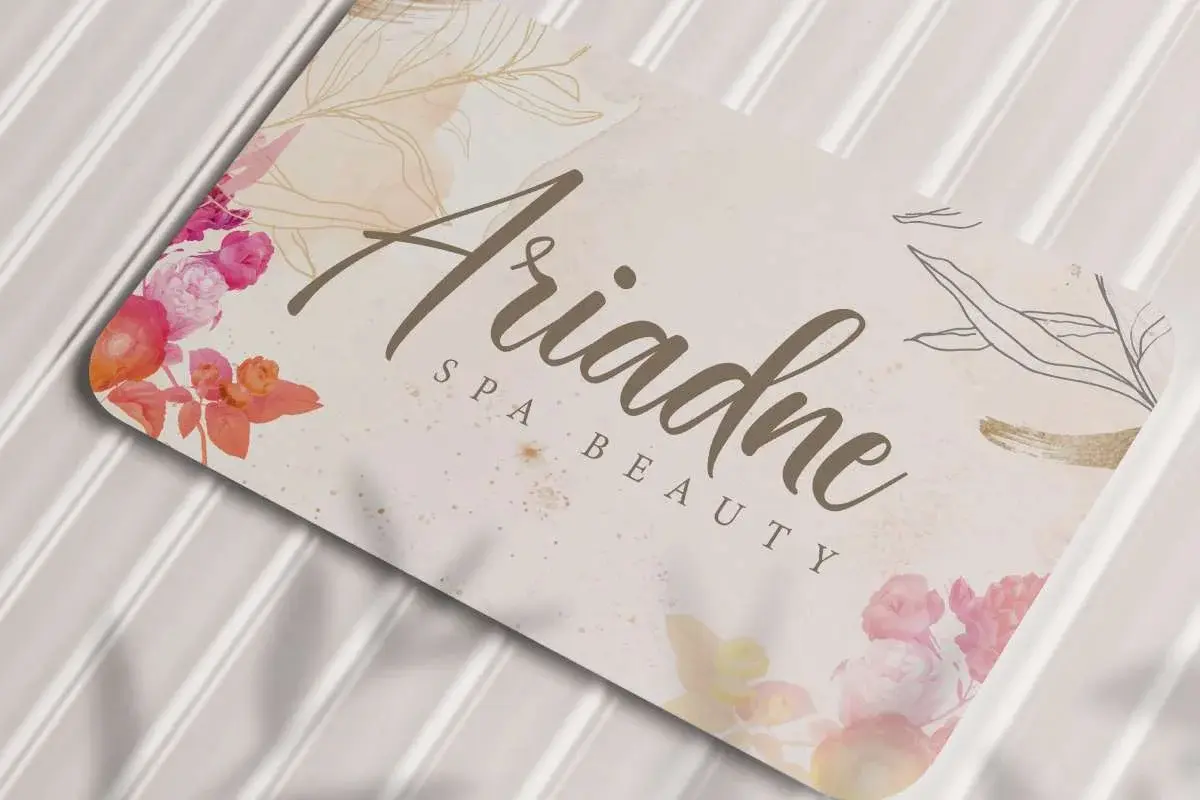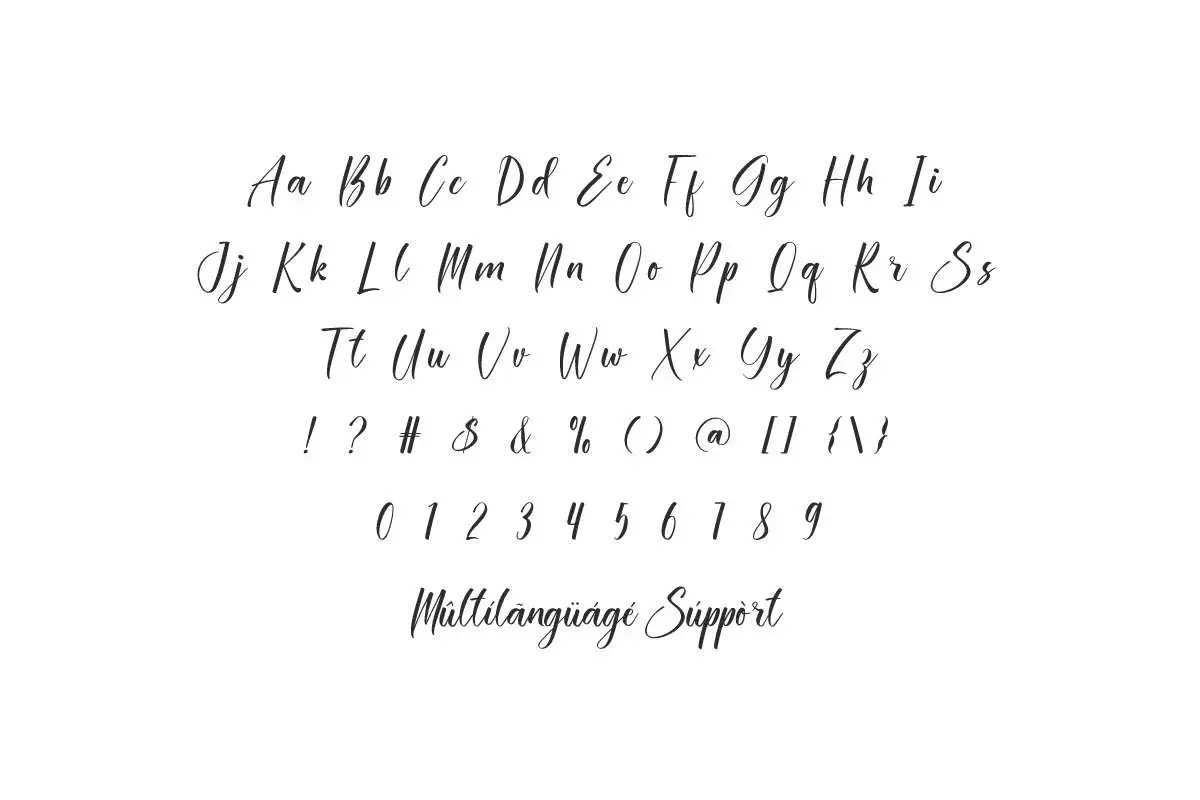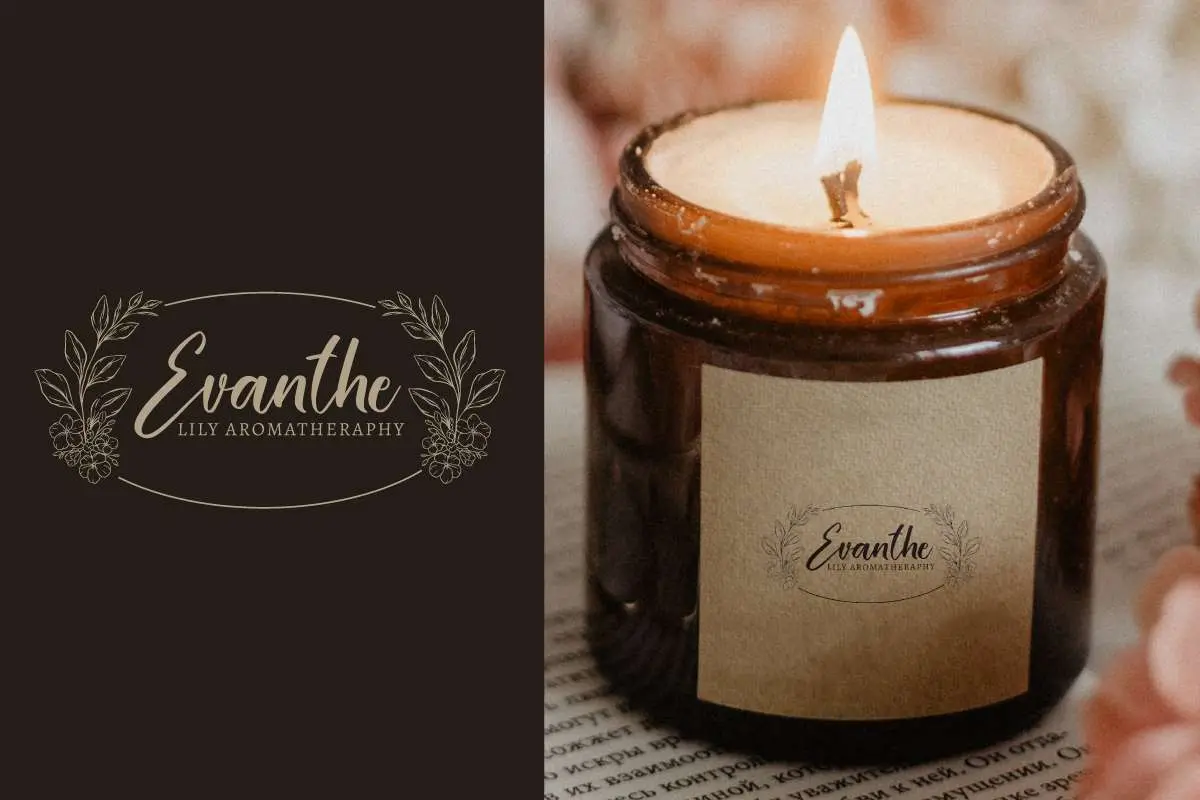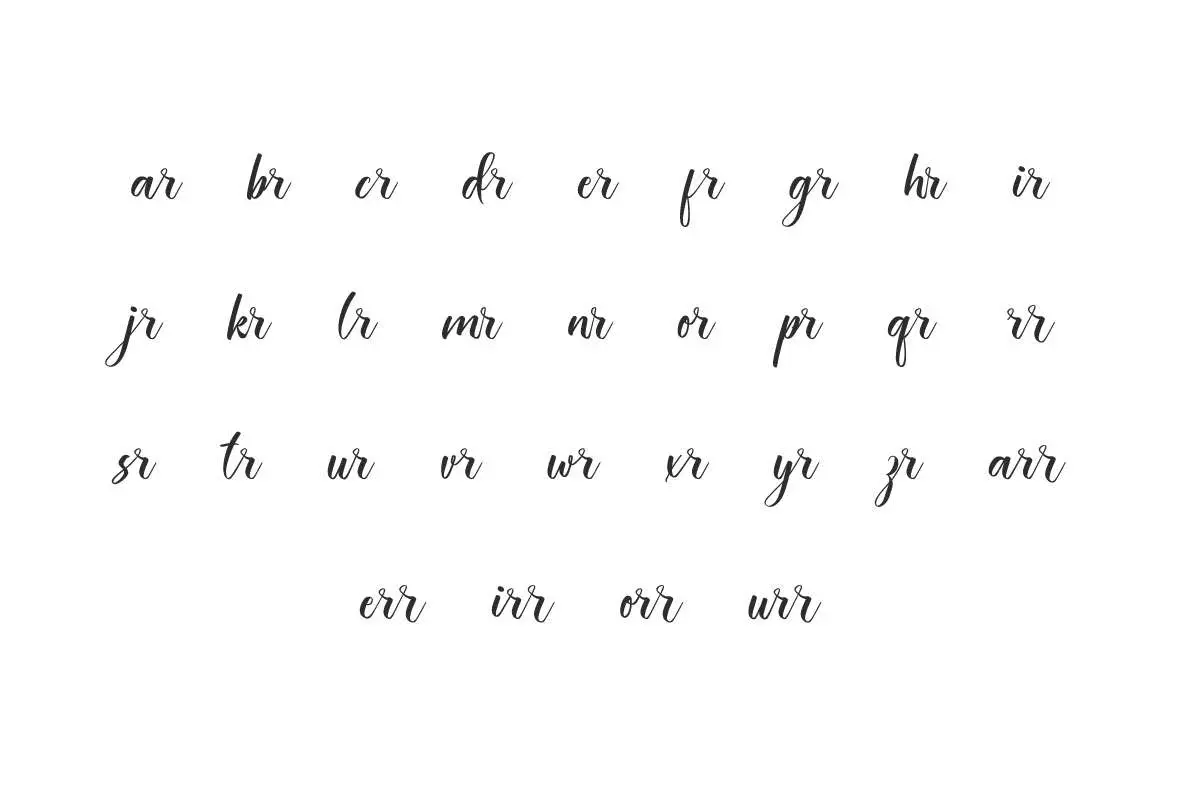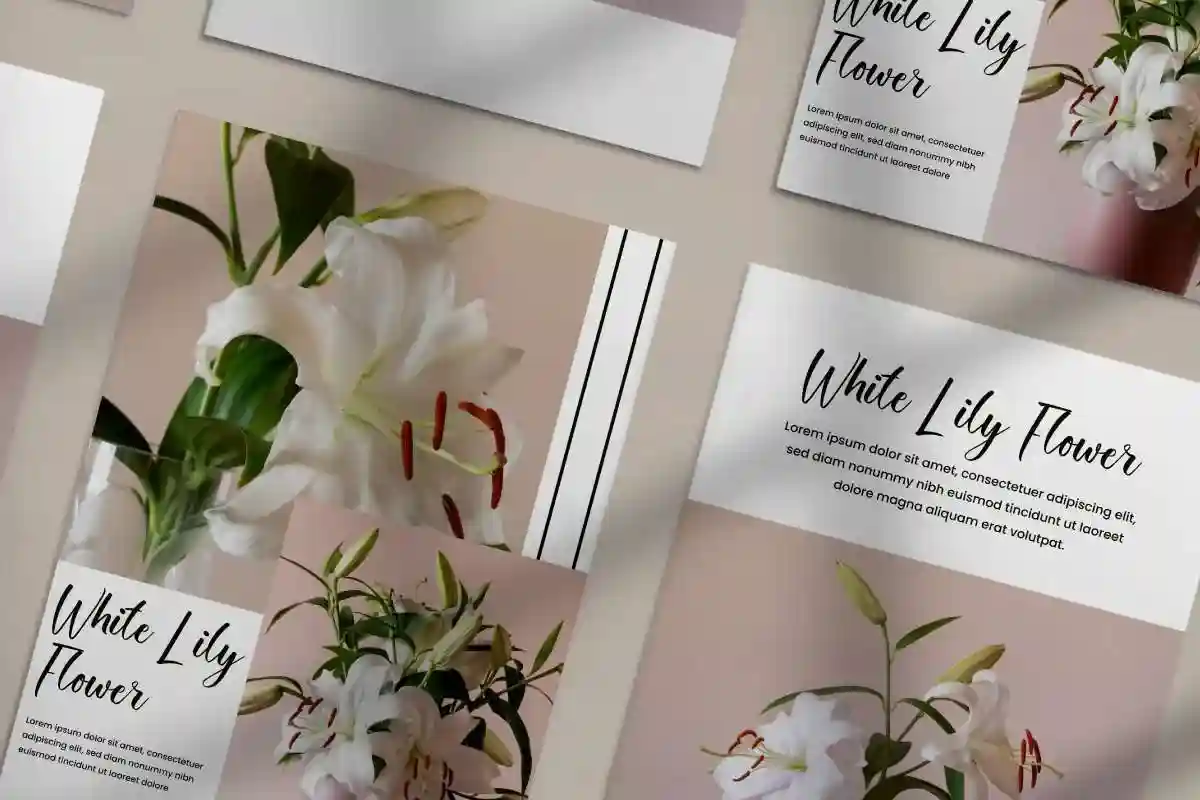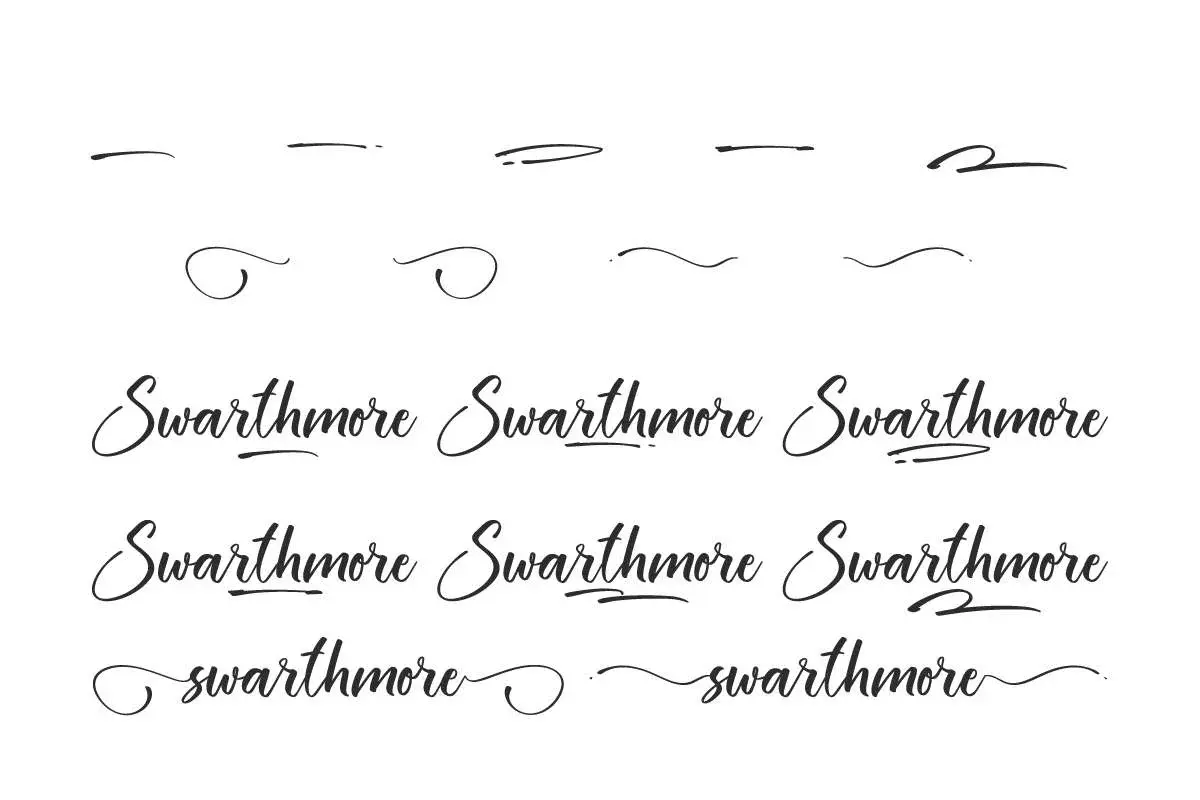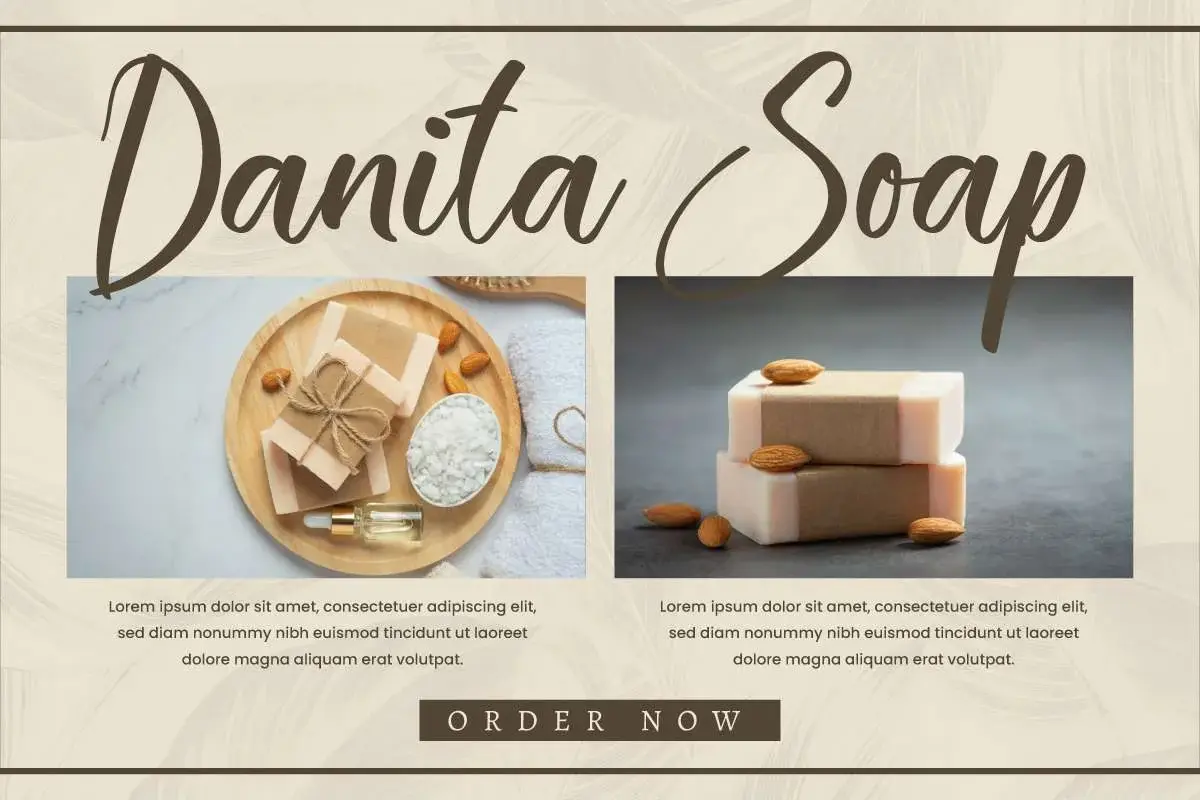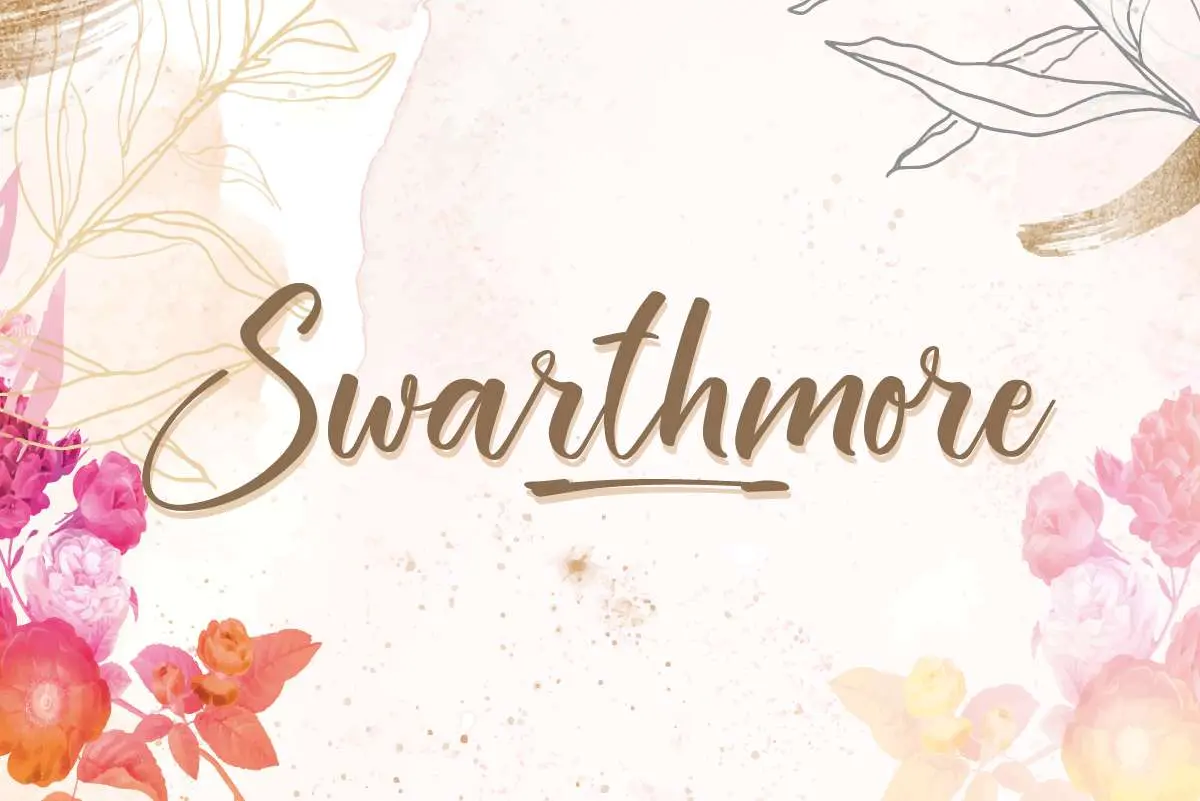
Swarthmore Font is a gorgeous calligraphic script with a timeless look that will be great for florist, weddings, spa, artist, magazine, product label, website, etc
Swarthmore Font is a gorgeous calligraphic script font with impeccable charm created by NihStudio. This typography was created with great care, having a perfect stroke of the brush giving it a classy and clean look that will elevate your designs, such as brand logo, brochure, business card, cover, invitation, label, photo album, product packaging, quote, screen print, sticker, title, watermark, website, and much more!
Swarthmore Font comes with a full set of Uppercase and Lowercase Basic Characters, Number, Punctuation, Symbol. This font also features with Ligature and Swoosh characters to make it perfectly bound and add aesthetic value to the font. Use this for your business industry such as, author, clothing brand, event organizer, florist, furniture, homeware, printing, publishing, restaurant, skincare, spa salon, wedding, etc.